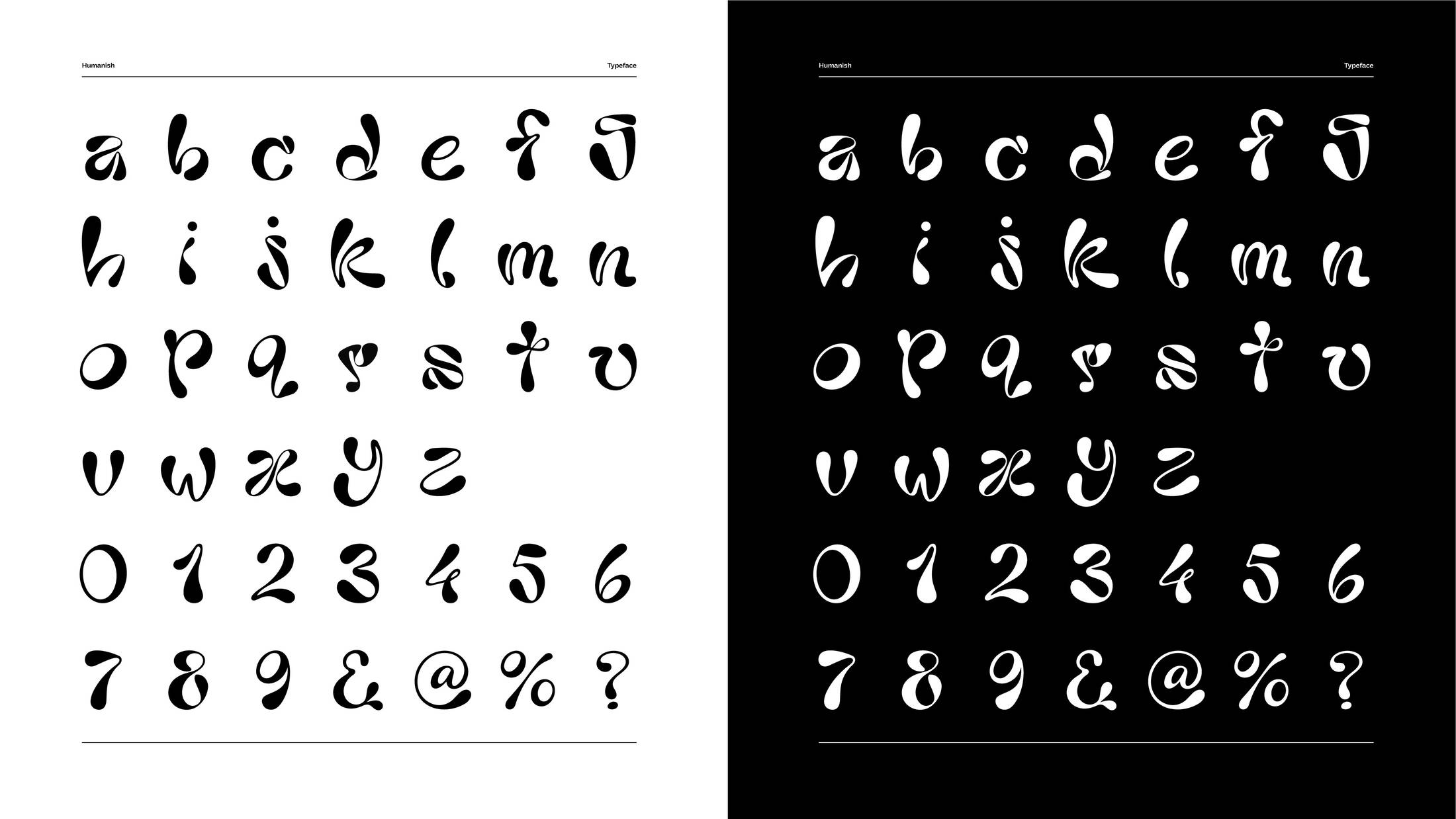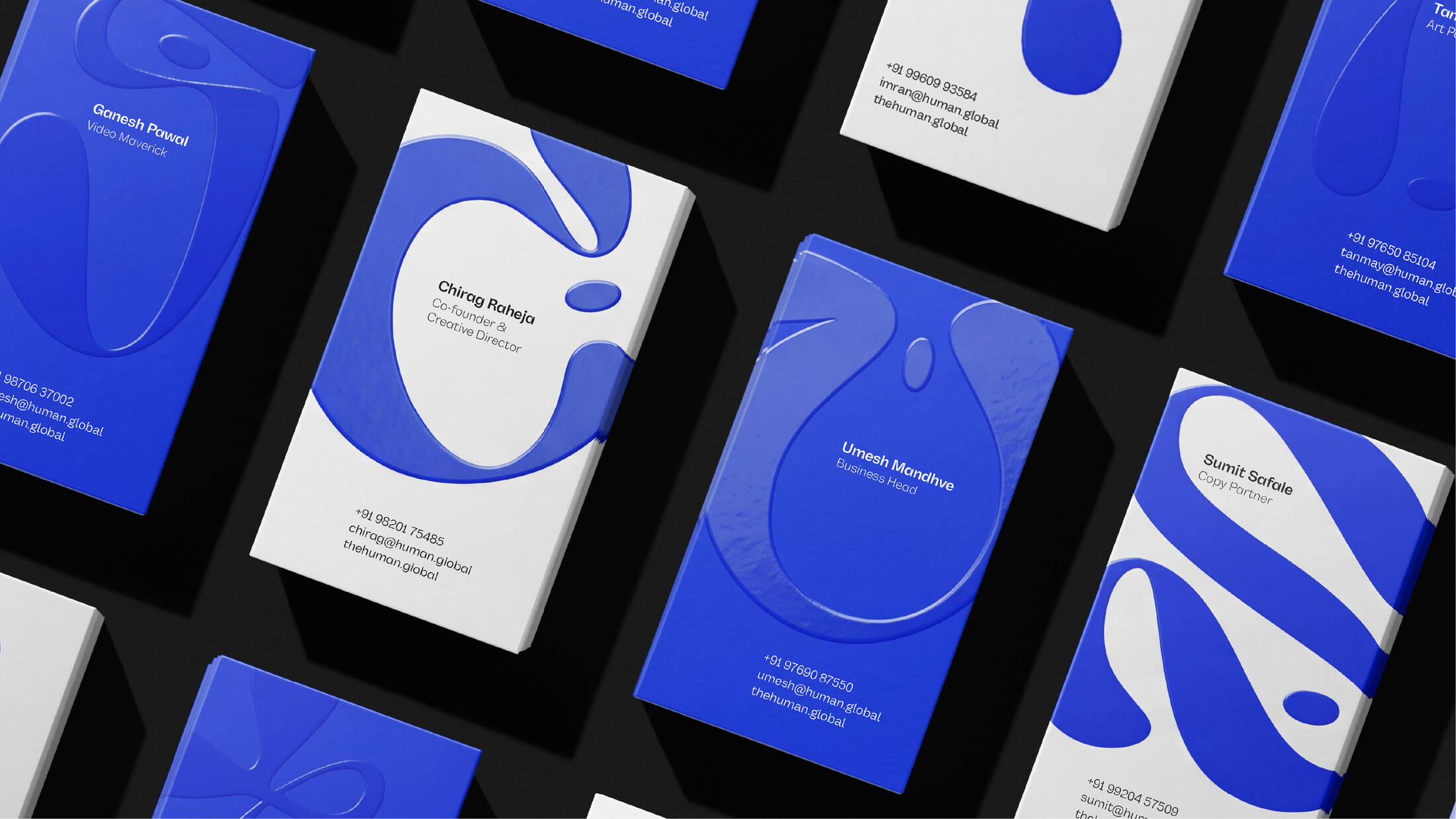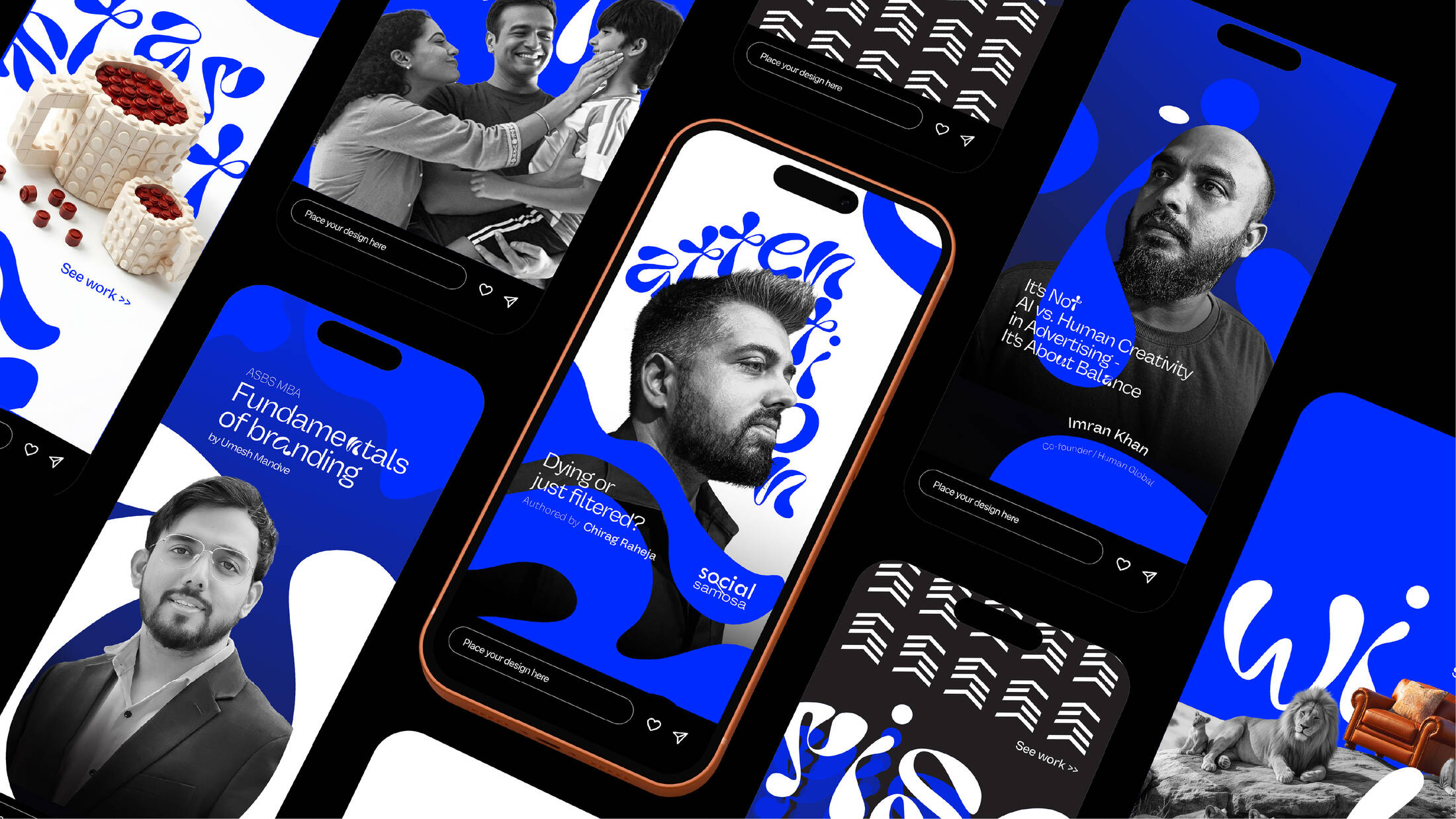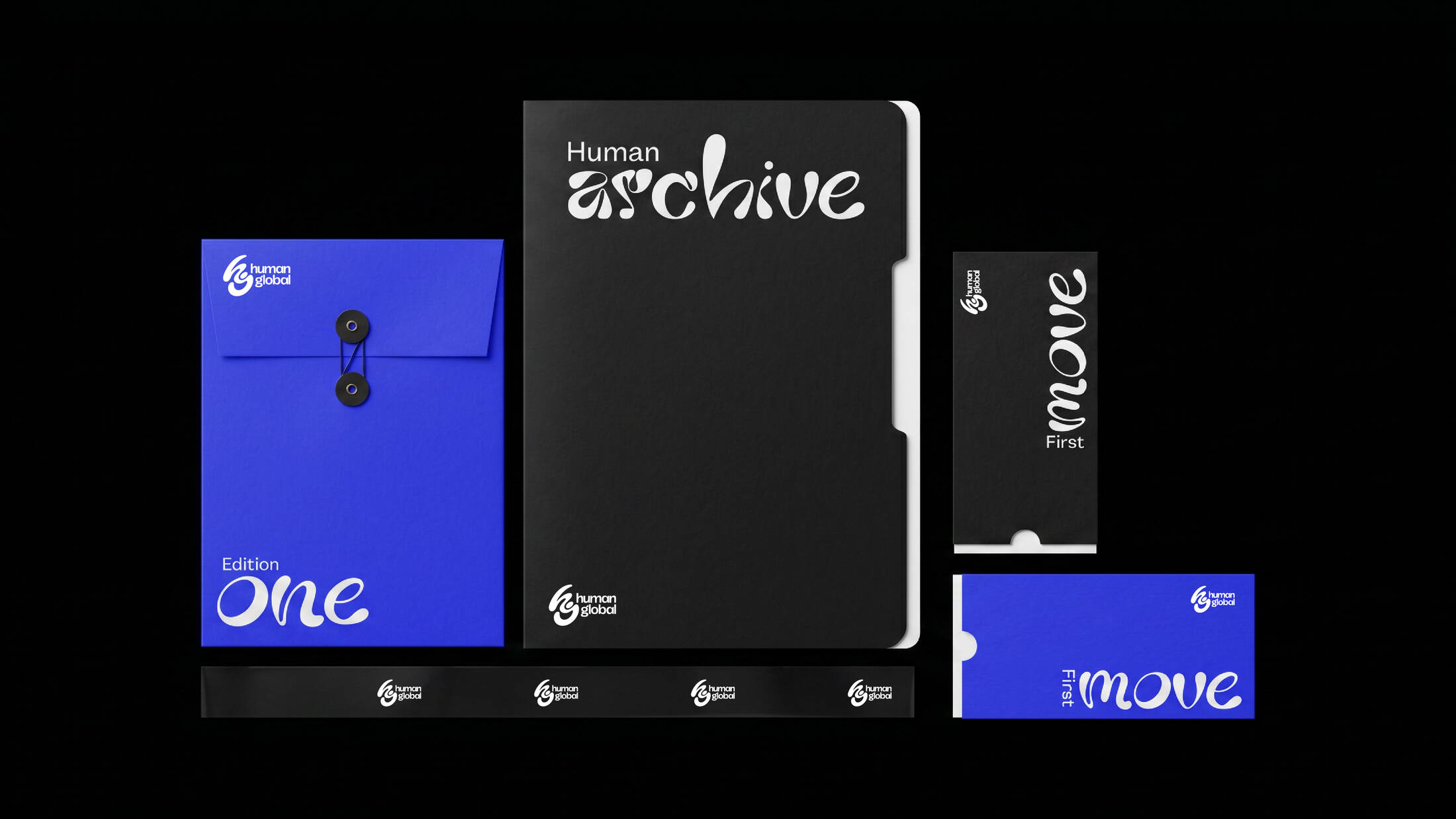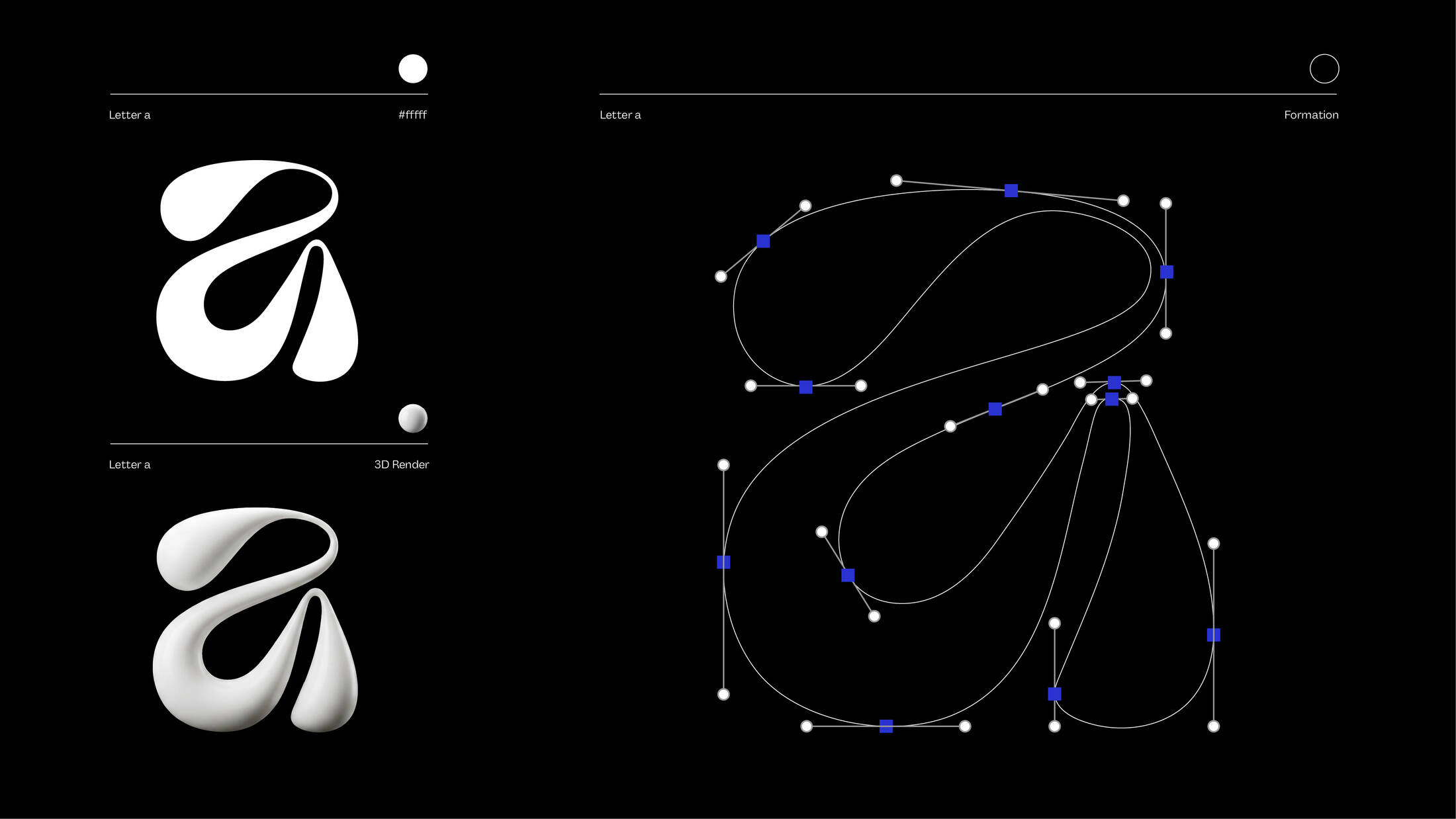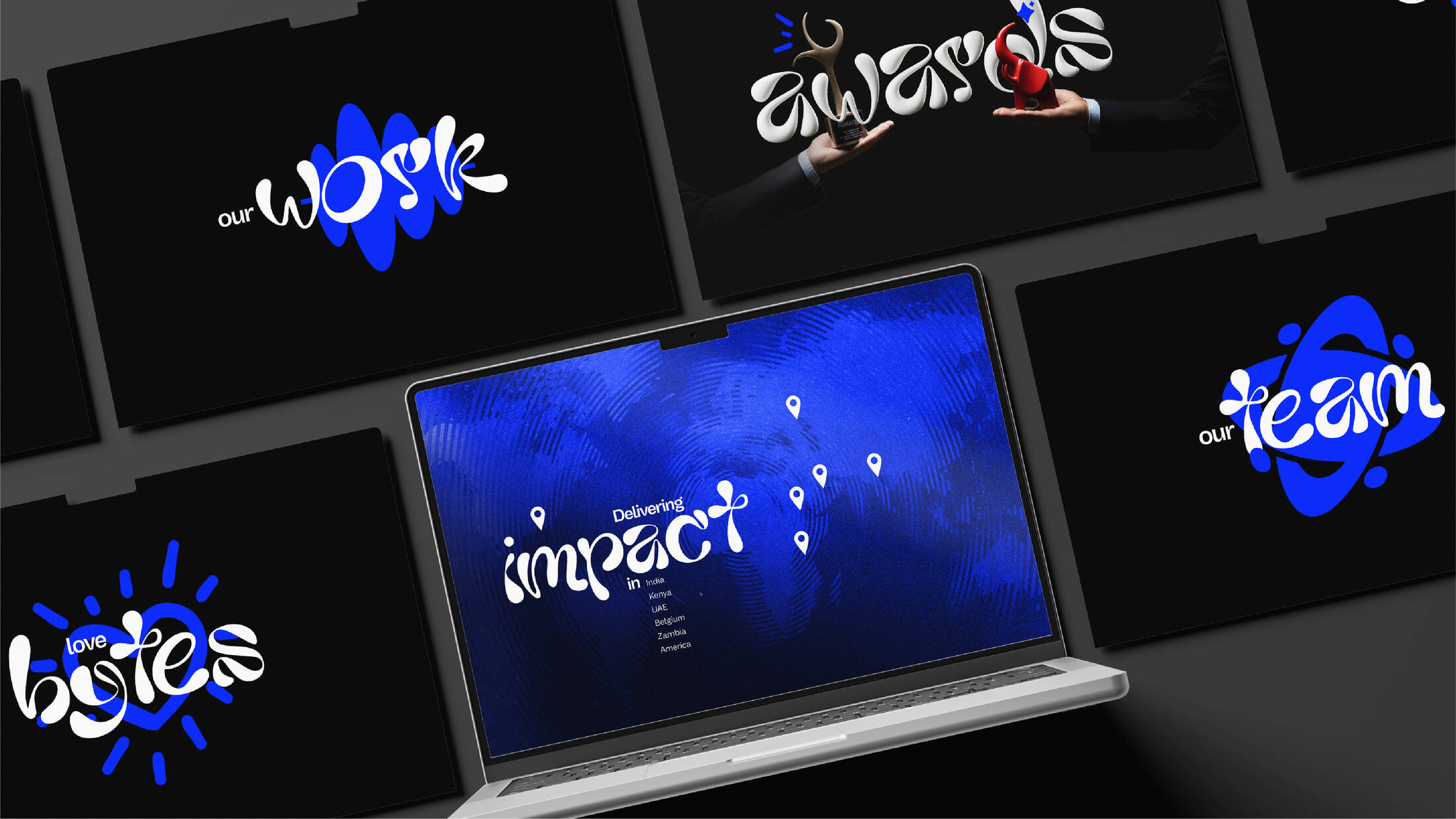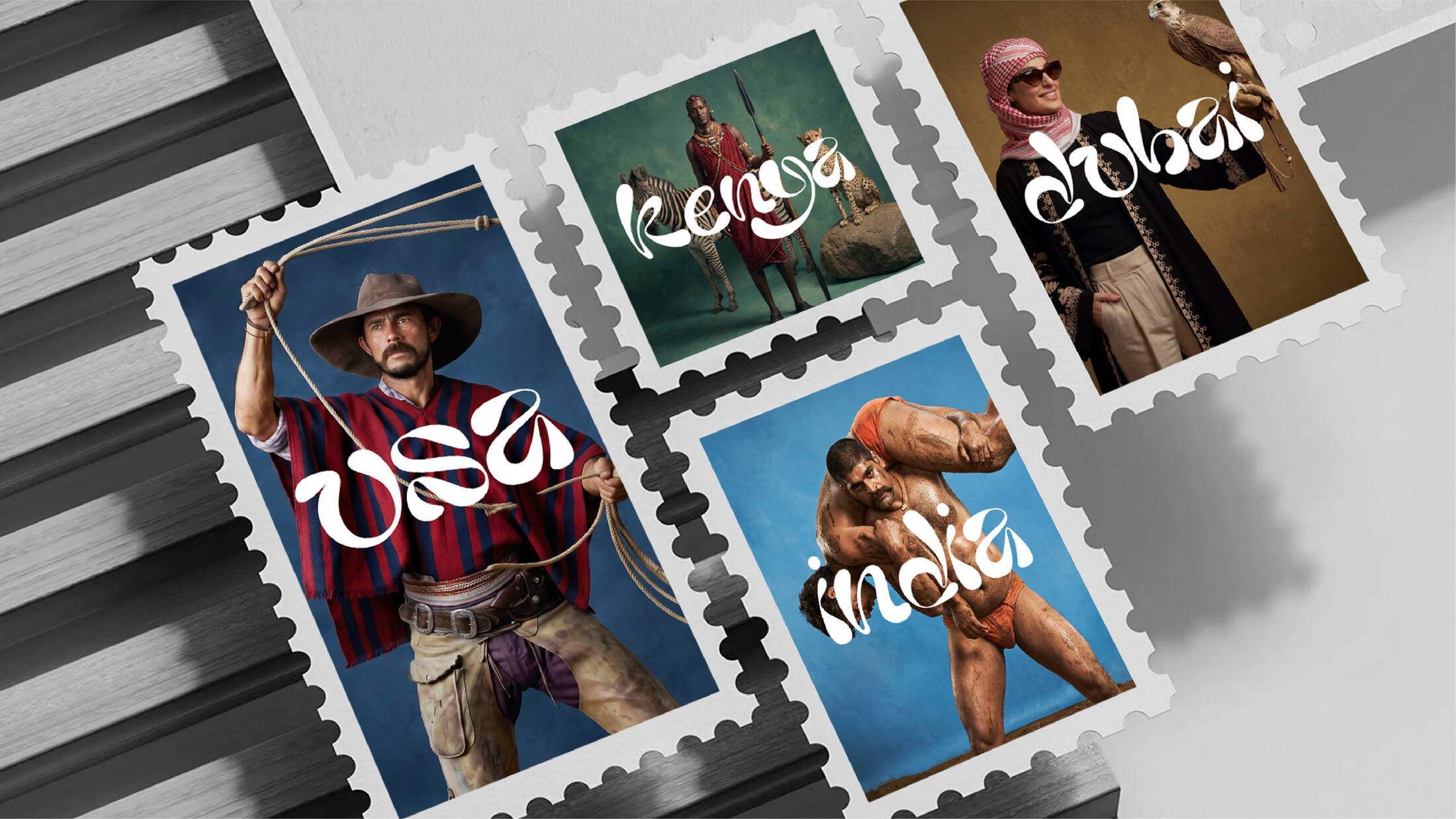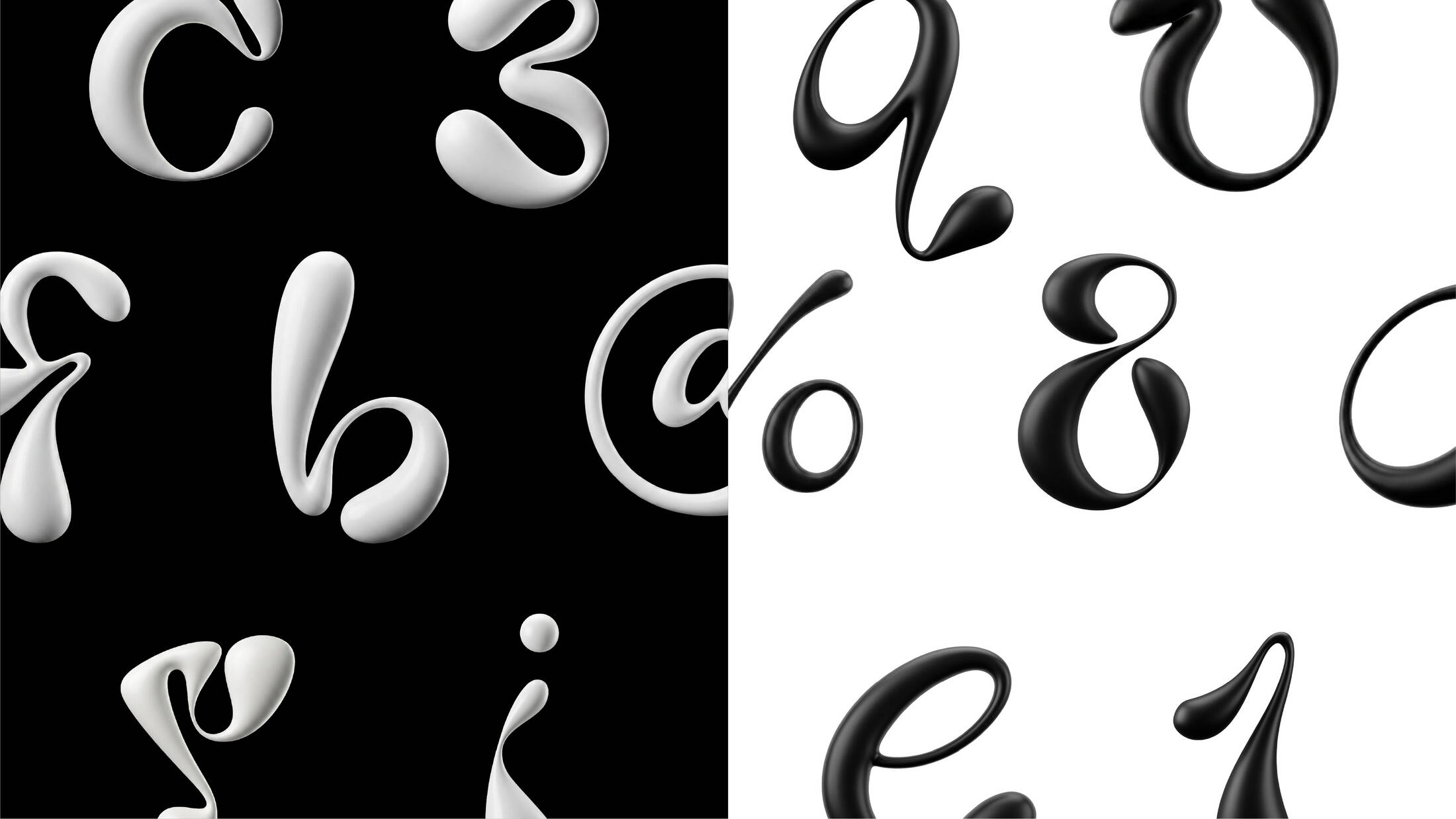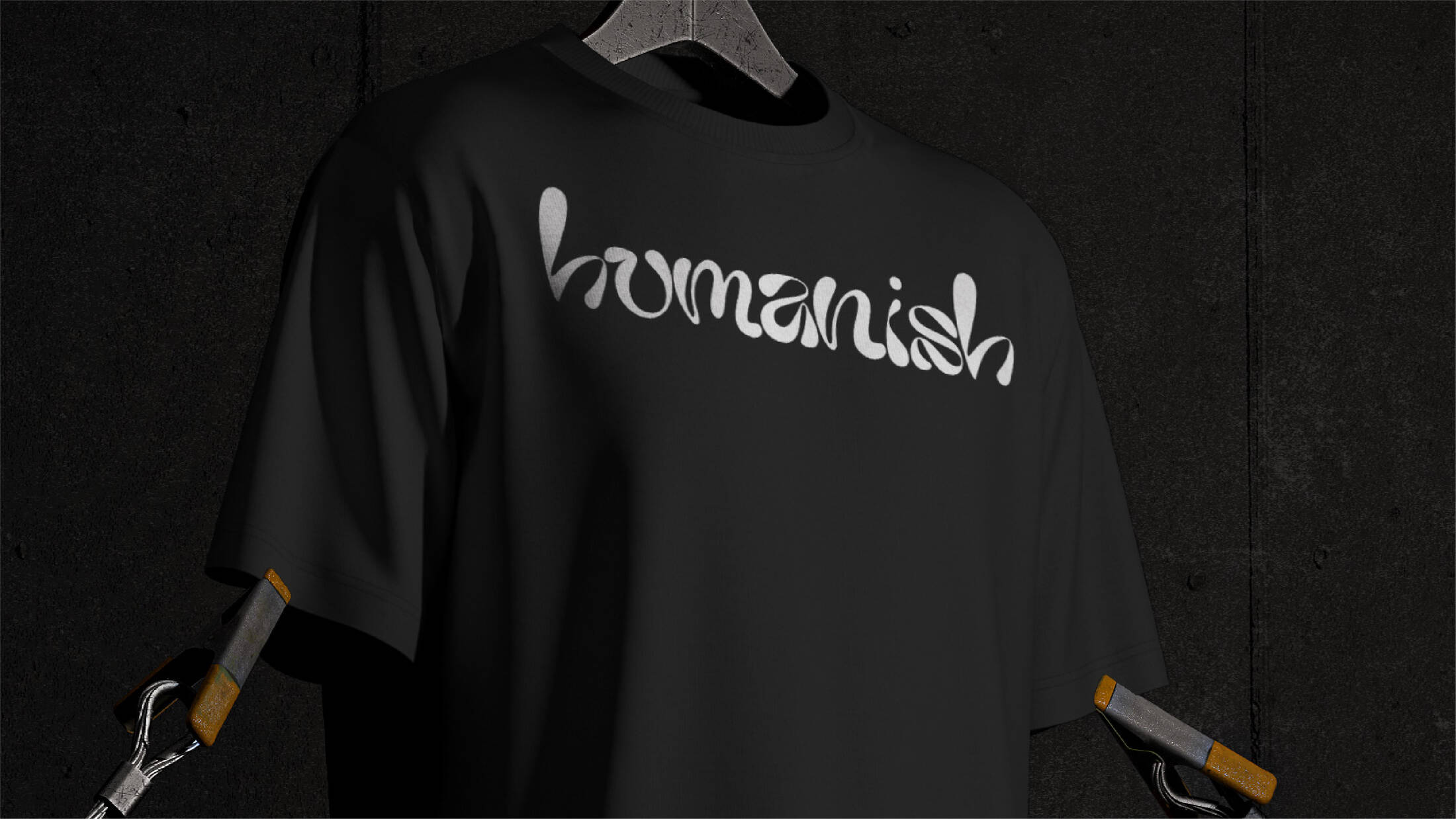
Human Global is a 2-year old creative agency headquartered in Mumbai.
We wanted to create a proprietary typeface that reflects the imperfect, instinctive and emotional nature of human behaviour. The intent was to challenge the visual sameness of modern branding, create an emotionally expressive design system, embed the agency’s philosophy into comms, and design a typeface that behaves more like people than machines.
The human truth?
People are emotional, impulsive, contradictory and constantly evolving. We interrupt ourselves. We change direction mid-thought. We react before we rationalise. We can't be seen as straight lines.
The Execution
Our custom typeface - Humanish - is designed around the unpredictability of human behaviour itself. Every curve, stretch and irregularity within the typeface is intentionally crafted to resist rigidity and mechanical uniformity.
In a world where branding systems are designed for consistency, we decided to optimise for humanity.
We didn't want our typeface to be perfect. Just, humanish.